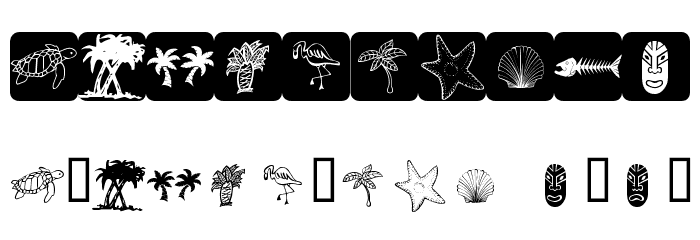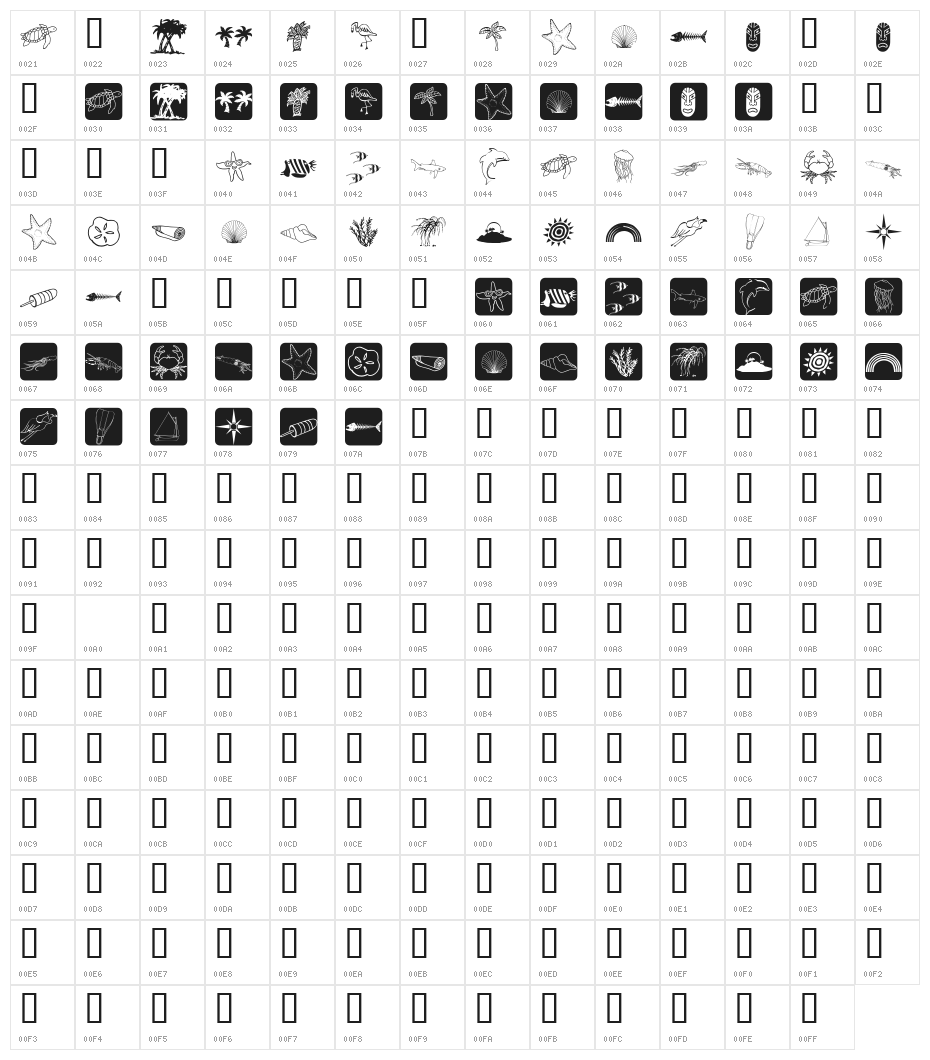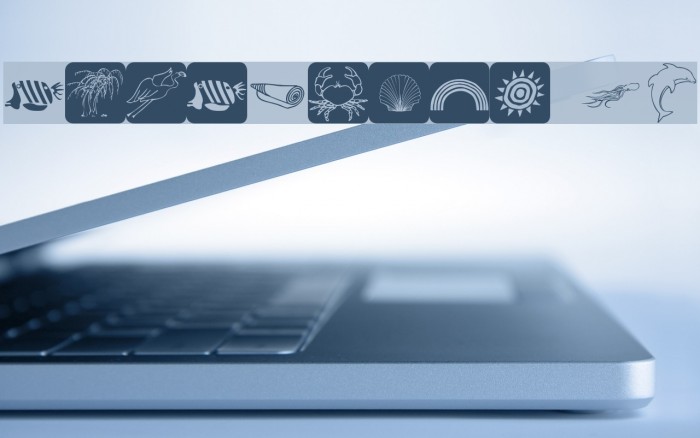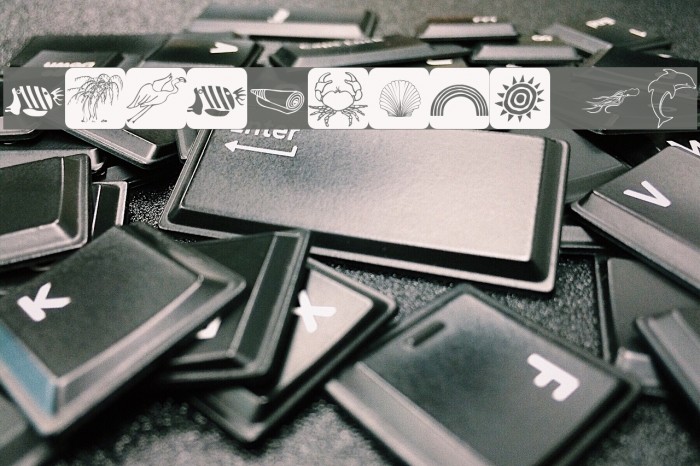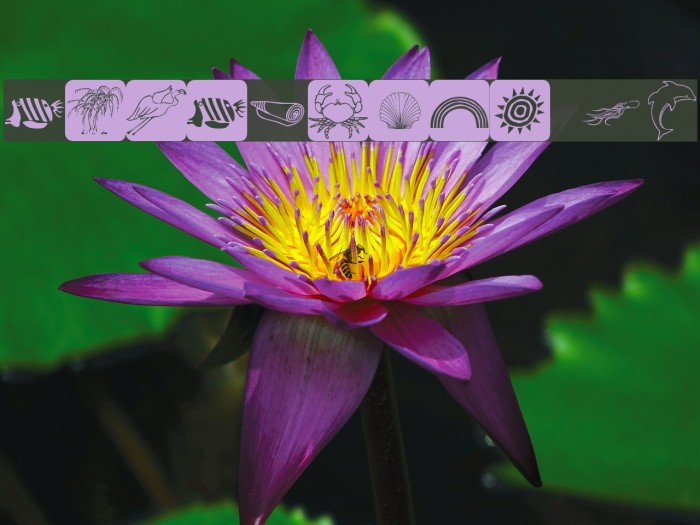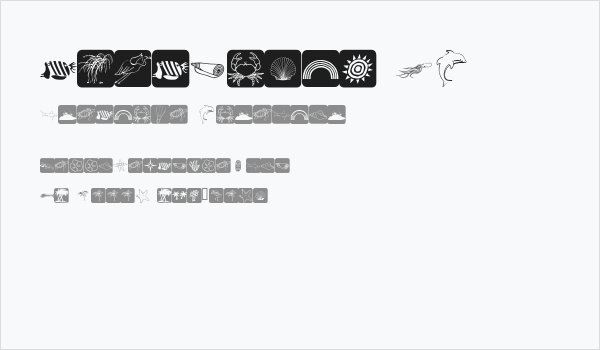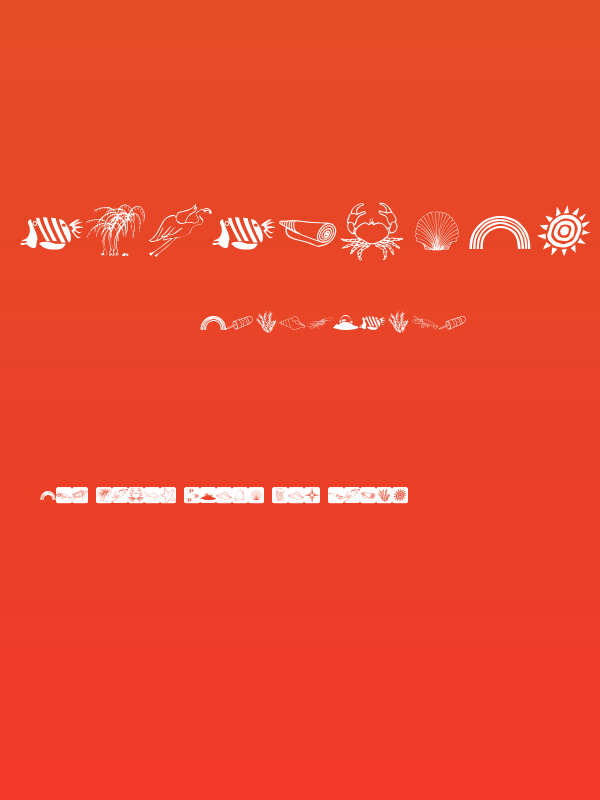
AquaMints GD Font
AquaMints GD Description
A playful decorative dingbat font featuring hand-drawn beach and ocean-themed illustrations such as fish, dolphins, turtles, shells, palm trees, and tropical motifs. The glyphs are outlined with a mix of filled and unfilled elements, some on solid backgrounds and others standalone.
| Overall Style | Decorative, Playful, Thematic |
| Use Case | Icons, Decorative accents, Themed graphics |
| Proposed Projects | Party invitations, summer event flyers, scrapbooking, themed posters, children's materials, travel brochures. |